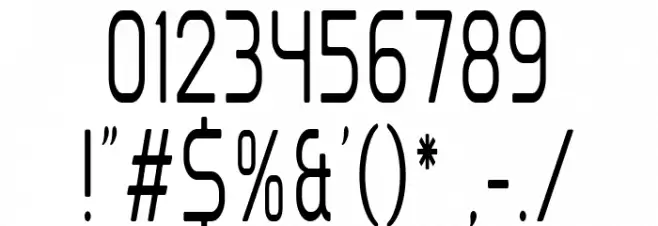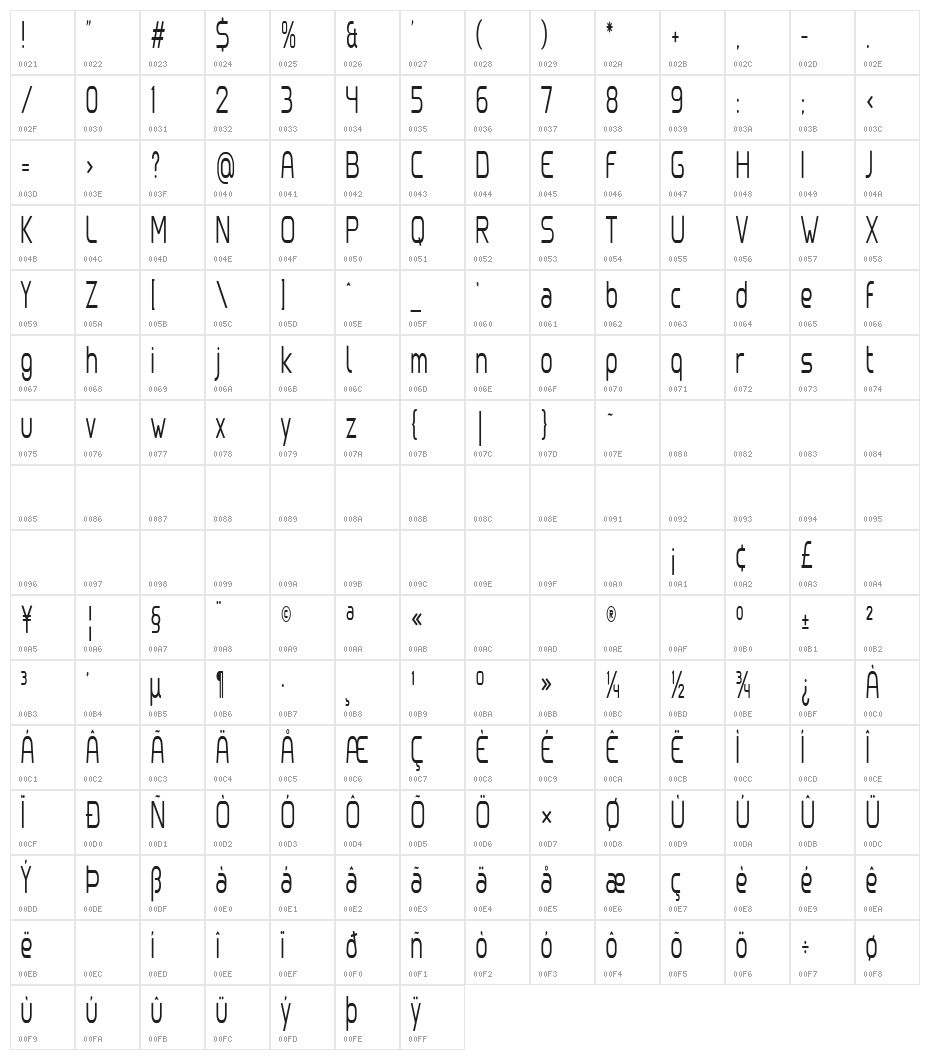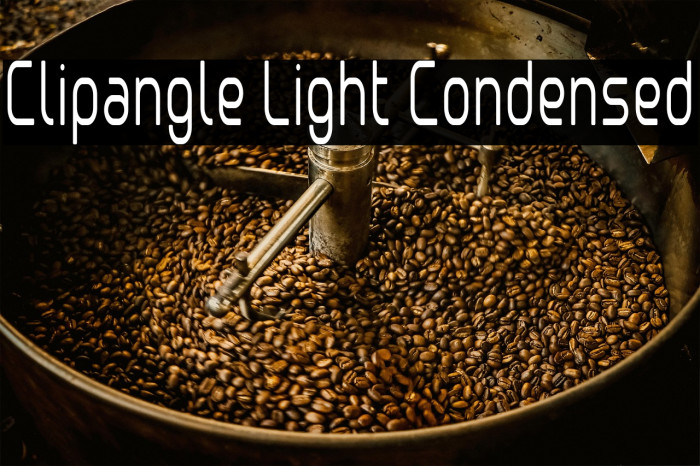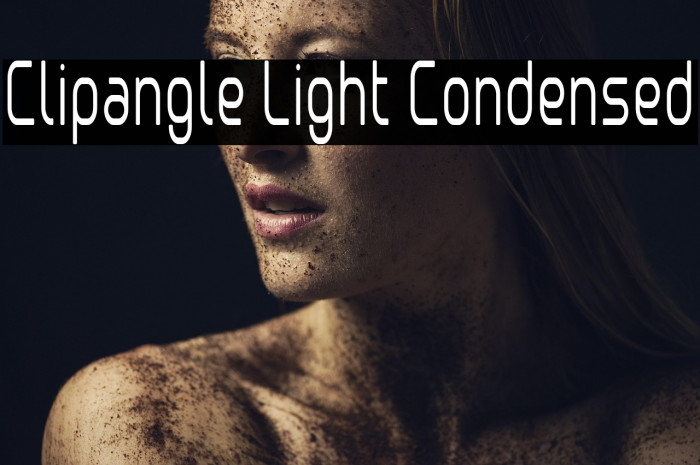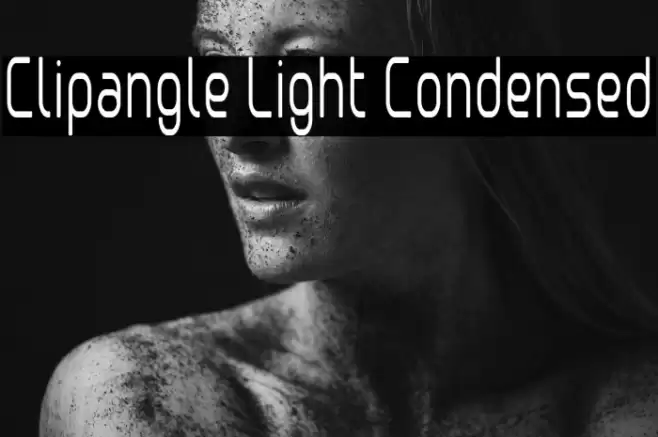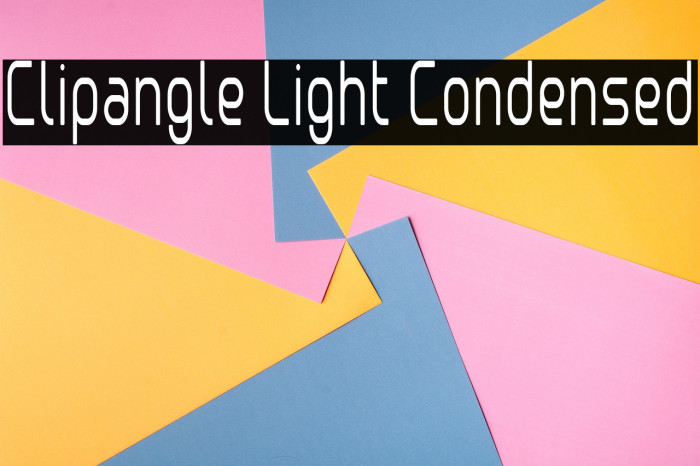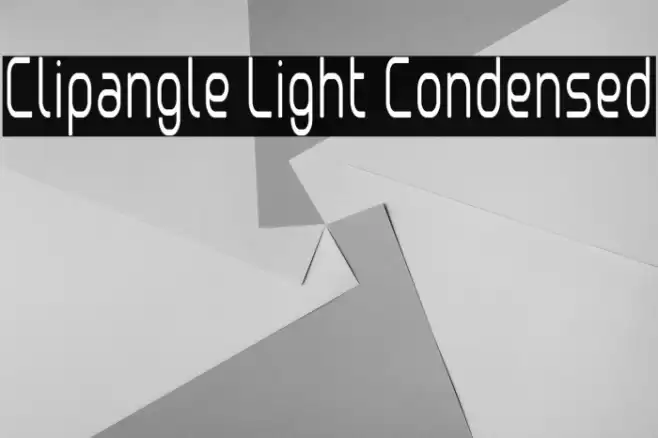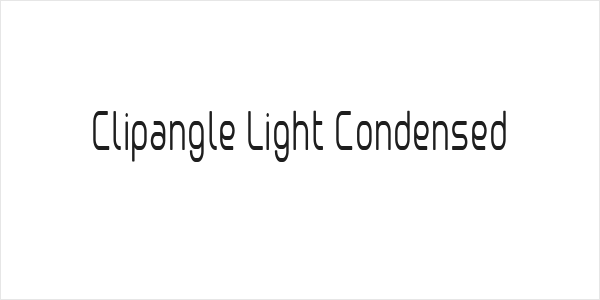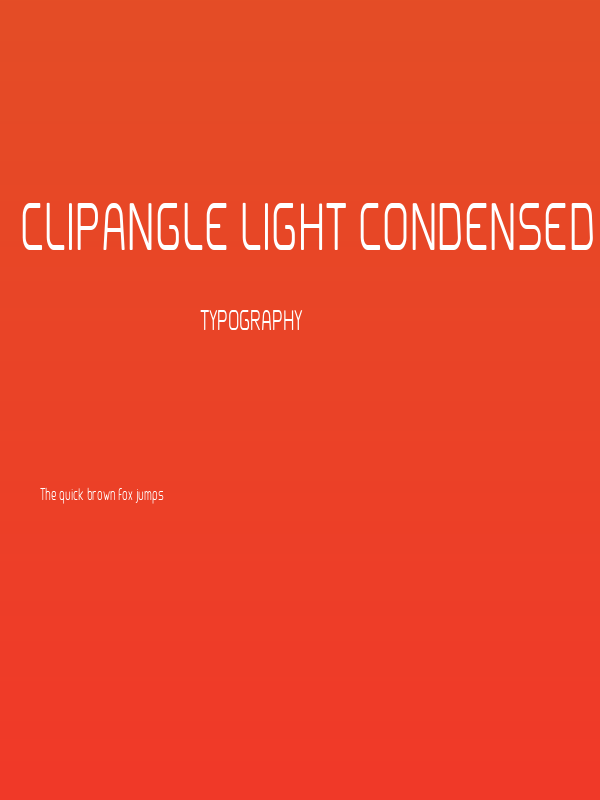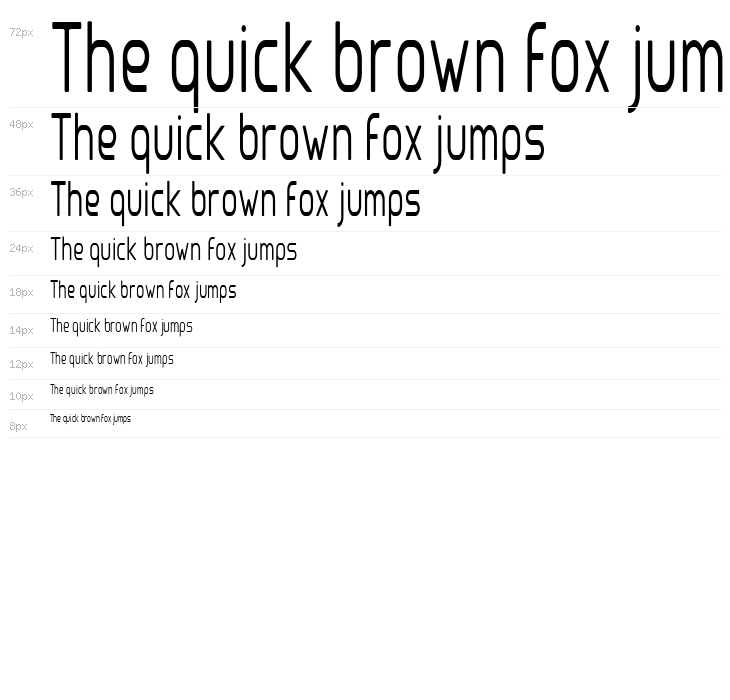
Clipangle Light Condensed Font
Clipangle Light Condensed Description
This font features a modern, geometric design with a clean and streamlined appearance. The characters are constructed with uniform stroke widths, giving it a consistent and harmonious look. The rounded edges and condensed form contribute to its sleek and contemporary style. It maintains a minimalist aesthetic, making it suitable for a variety of design applications. The uppercase and lowercase letters are well-balanced, and the numerals are clear and legible. Special characters are included, enhancing its versatility.